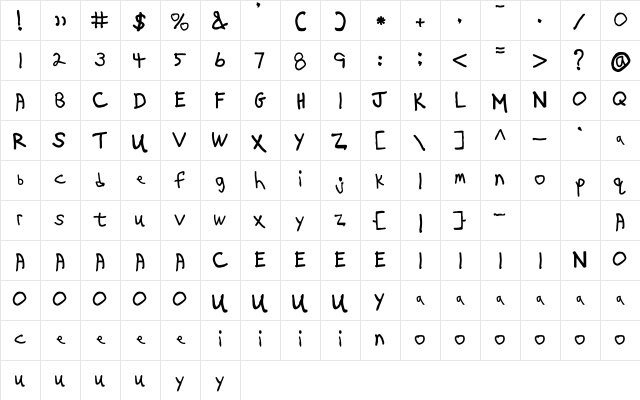
On The Fritz Regular
| Foundry | migzors |
| Designer | Michael Orlando |
Design Context for On The Fritz Typeface
On The Fritz is a composed and adaptable typeface that performs quietly and consistently across a wide range of design contexts.